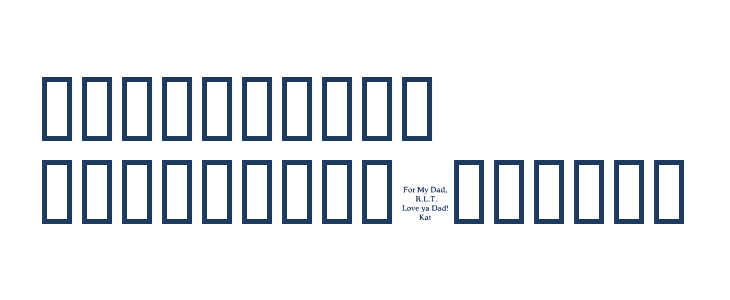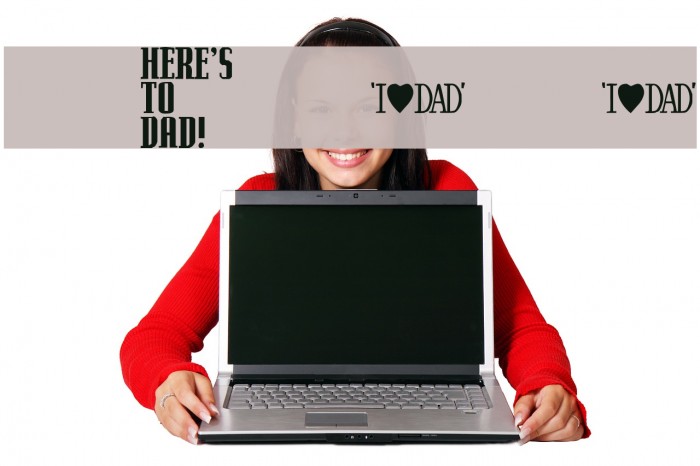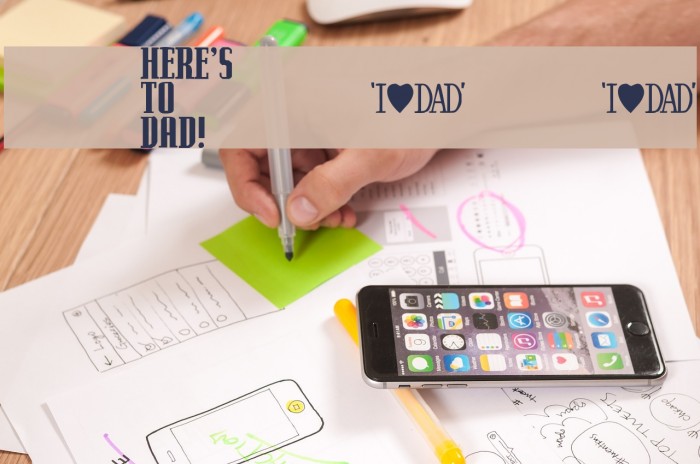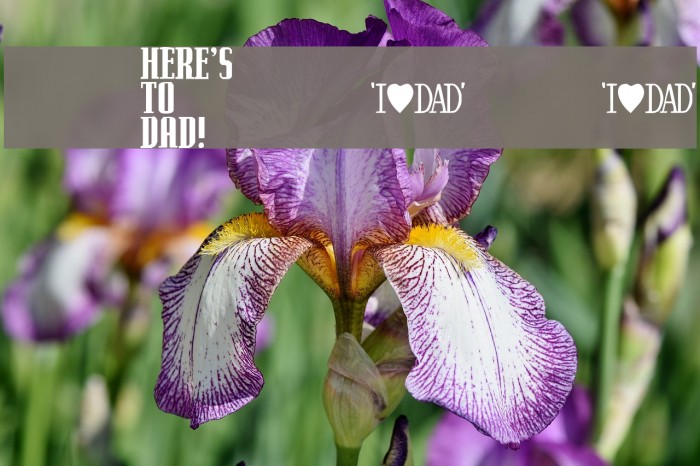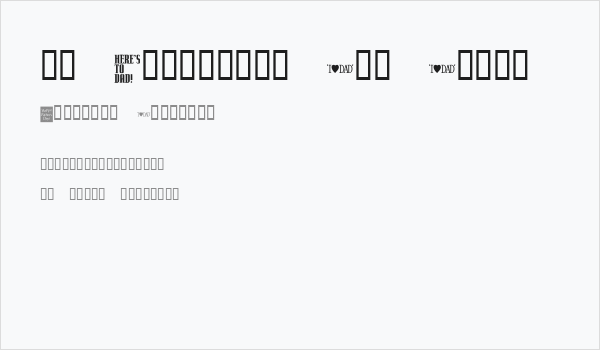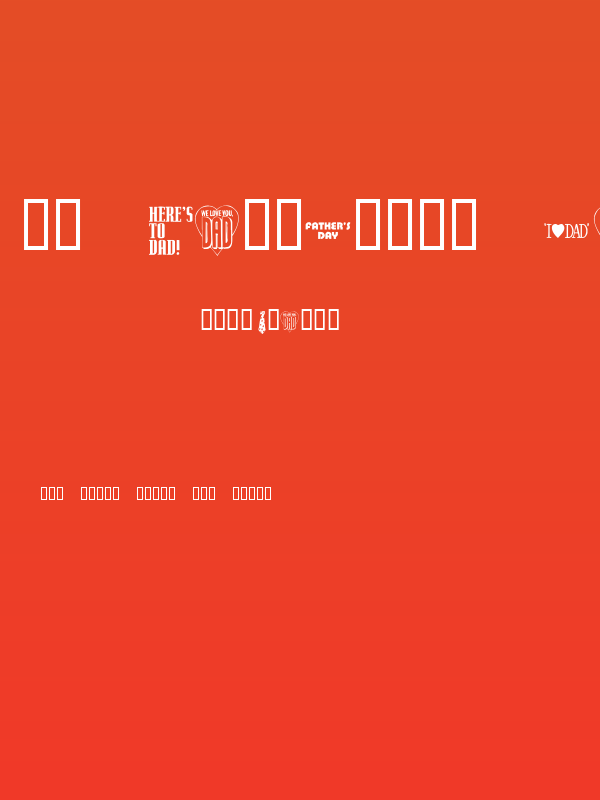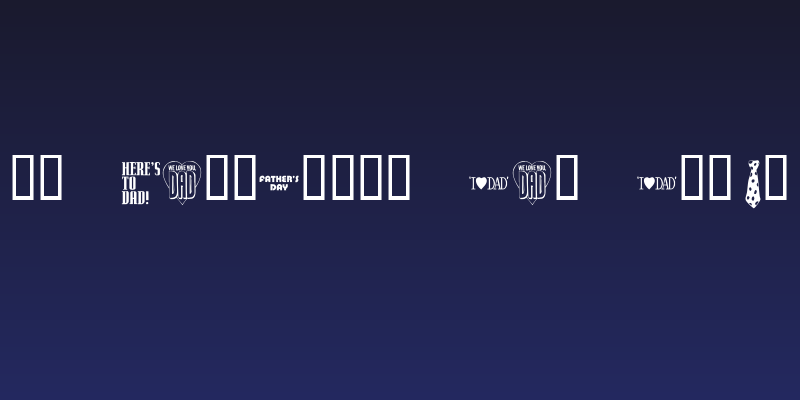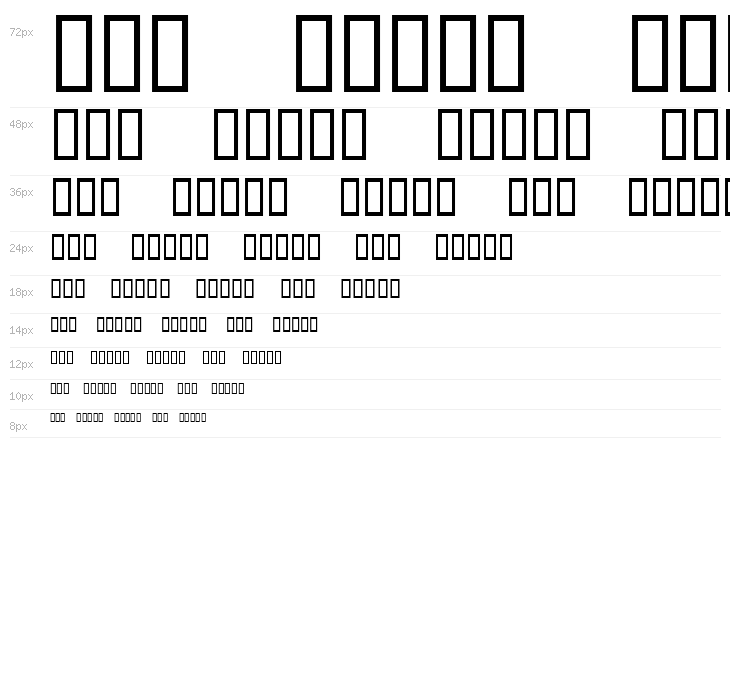
KR Father's Day Dings Font
KR Father's Day Dings Description
This is a decorative font set designed specifically for Father's Day themes. It includes a variety of playful and celebratory elements such as hearts, ties, and phrases like 'We Love You, Dad' and 'Happy Father's Day'. The font features bold, eye-catching designs with a mix of serif and sans-serif styles, often incorporating playful graphics like ties and hearts. The overall style is festive and celebratory, perfect for creating cards, banners, or any Father's Day-themed projects. The characters are designed to convey warmth and appreciation, making them ideal for personal and heartfelt messages.
Overall StyleFestive and celebratory
Use CaseHeadlines, Logos, Decorative text
Proposed ProjectsIdeal for creating Father's Day cards, banners, posters, and personalized gifts.